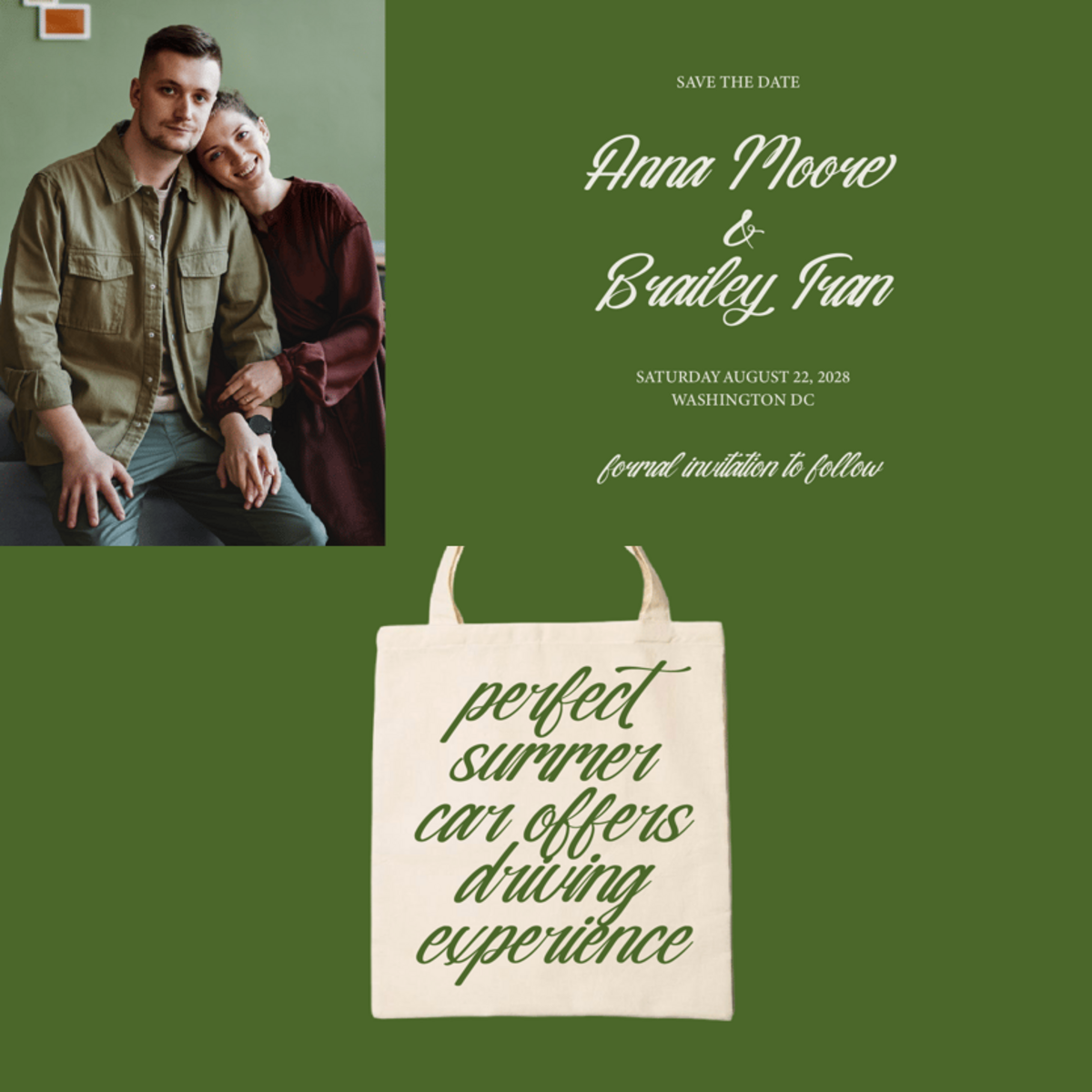
Crafting Legacies with Type: How Nostalgic Pictures' Bold Expressiveness Empowers Handmade & Artisan Brands to Weave Compelling Narratives Across Editorial Features, Lookbooks, and Bespoke Packaging Designs
Hello there, you wonderful, visionary creative! I’m Nostalgic Pictures, and yes, I talk. Some might say it’s the confident curves, others the grounded, expressive strokes, but I’ve got a unique story to tell, and I think you’ll find it resonates deeply with your own.
You see, I wasn't just designed; I was envisioned as a conduit for authentic expression. I understand that you pour your heart, soul, and meticulous skill into every single piece you create. Every stitch, every brushstroke, every carefully chosen material tells a tale of passion and dedication. But in a world overflowing with visual noise, does your brand’s voice truly cut through? Does your type convey the depth and unique narrative of your handmade treasures?
That’s where I step in. I bridge the beautiful gap between yesterday's cherished craftsmanship and tomorrow’s bold statements. I’ve absorbed the warmth of vintage prints, the steadfast reliability of traditional signage, and the unapologetic confidence of modern design. This blend isn't just a stylistic choice; it’s my inherent 'bold expressiveness,' my superpower. I empower your visual identity to not just be seen, but to be felt. I ensure your authentic brand story doesn't just whisper; it sings, clear and resonant, demanding attention and respect for the artistry it represents. No more blending into the background; I'm here to give your unique voice the visual weight and timeless character it truly deserves.
Nostalgic Pictures: Your Craft, Amplified.
Imagine me gracing the elegant header of your artisanal ceramic studio's website, making your welcome message instantly memorable. Picture my commanding presence on the custom label of your organic skincare line, subtly hinting at the genuine care poured into every single jar. See me transform a simple quote card for your social media into a striking piece of visual art, or lending a confident, storytelling voice to your latest handmade jewelry lookbook. From the inviting signage above your boutique storefront to the heartfelt details on your exclusive workshop invitations, and even within the sophisticated editorial spreads featuring your brand in a revered craft magazine, I ensure your craftsmanship speaks volumes.